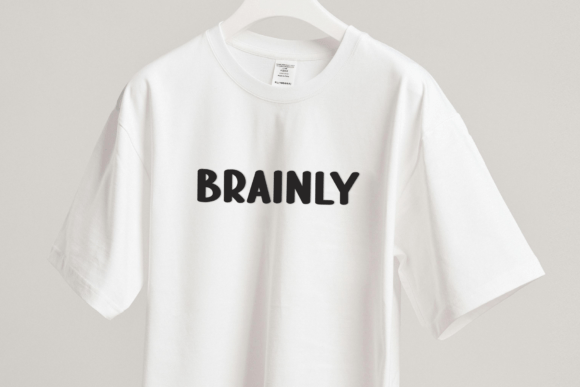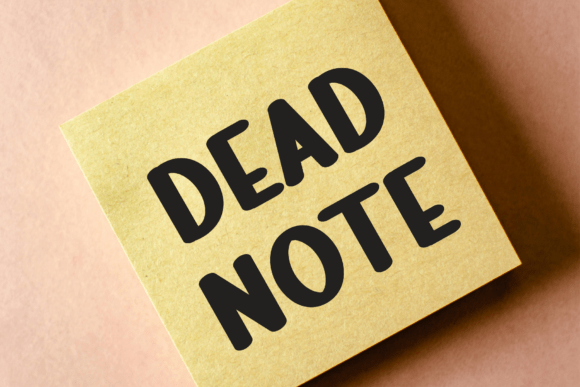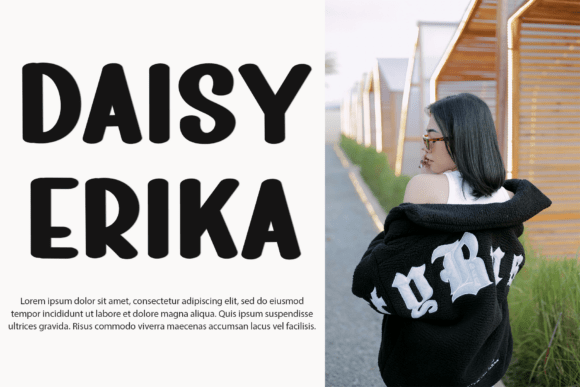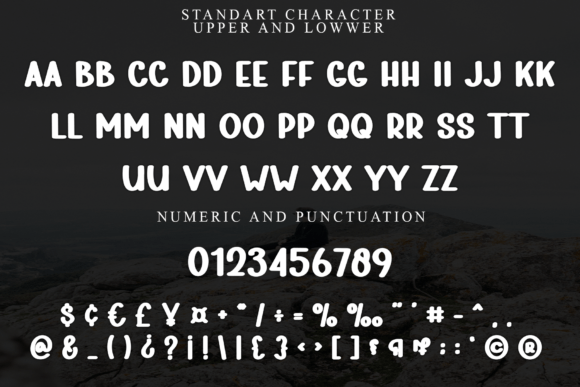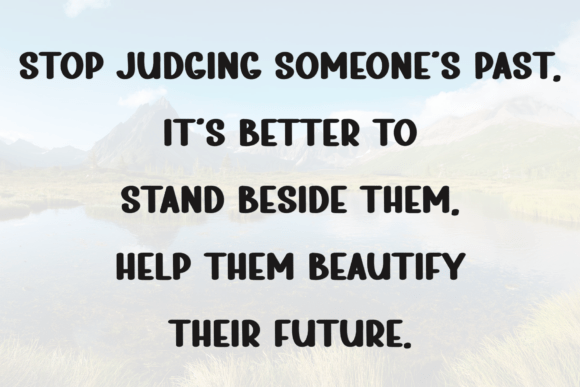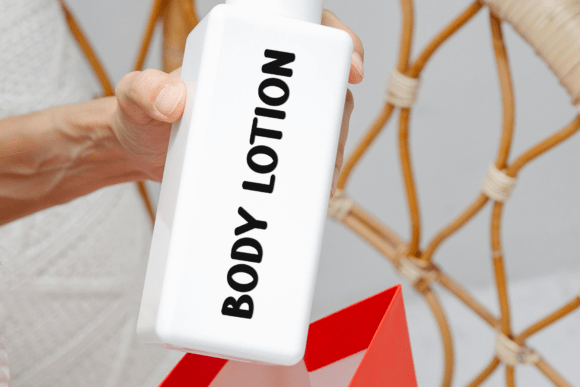
Introduction to National Ceremony Font
As you sit in front of your computer, staring at a blank canvas, the excitement of starting a new creative project builds up inside you. The anticipation of bringing your vision to life is almost palpable. And then, it hits you – the perfect font to give your project that extra oomph. For many designers, finding the right font can be a game-changer. It’s what takes your design from good to great, and that’s exactly what the National Ceremony Font does.
With its soft, unique touch and distinctive strokes, the National Ceremony Font is a beautiful and eye-catching addition to any design project. Its versatility and high quality make it a valuable resource for designers, perfect for a wide range of creative projects, from crafts to digital designs. And the best part? It’s available for free download, making it an accessible design resource for designers of all levels.
Key Features of National Ceremony Font
- High-quality design suitable for creative projects, such as invitations, posters, and certificates.
- Unique characteristics: elegant and sophisticated design, perfect for formal events and ceremonies, such as weddings, graduations, and award ceremonies.
Honest Review: National Ceremony Font
As a designer, I’m always on the lookout for unique and high-quality design resources to elevate my creative projects. Recently, I stumbled upon the National Ceremony Font, and I’m excited to share my honest review.
First off, I love the elegant and sophisticated feel of this font. It’s perfect for any project that requires a touch of sophistication and elegance. ✨ The font is highly versatile and can be used for a wide range of applications, from wedding invitations to corporate branding.
One of the standout features of the National Ceremony Font is its transparent background, making it easy to customize and integrate into any design. ✨ Additionally, it’s available as a free download, which is a huge plus for designers on a budget.
- The font may not be suitable for projects that require a bold or playful tone.
Overall, I’m impressed with the National Ceremony Font. While it may have some limitations, its high quality and versatility make it a valuable addition to any designer’s toolkit. ✨ If you’re looking for a sophisticated and elegant font for your next creative project, I highly recommend giving it a try.
The National Ceremony Font is commonly used in formal events, such as weddings or graduations, where a high-quality and elegant design is required. It’s also used in creative projects, such as posters or flyers, where a unique and eye-catching font is needed. With its versatility and high-quality design, the National Ceremony Font is a must-have for any designer or creative professional.